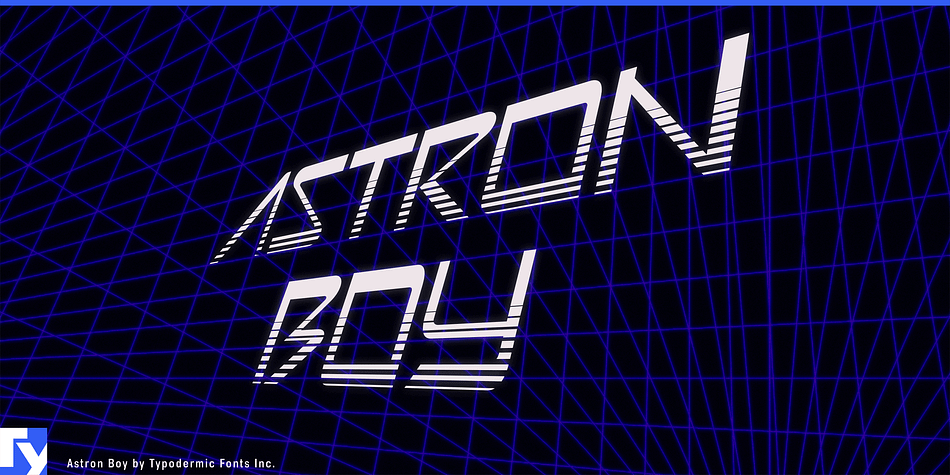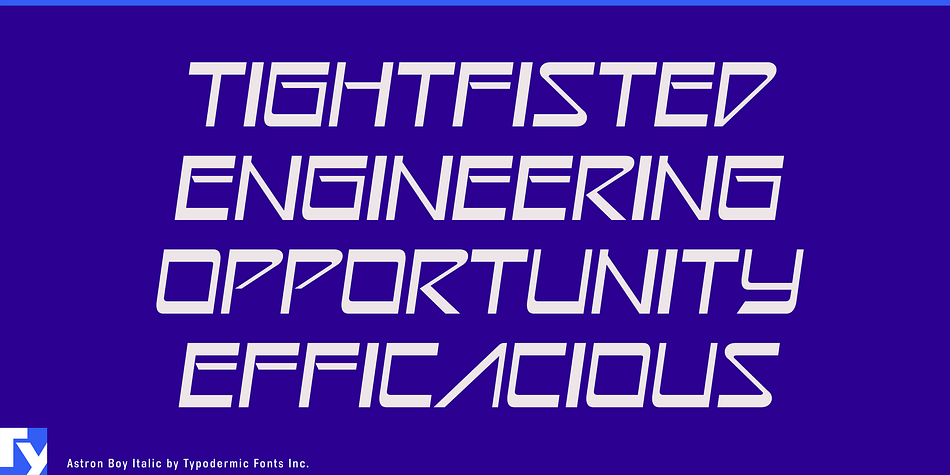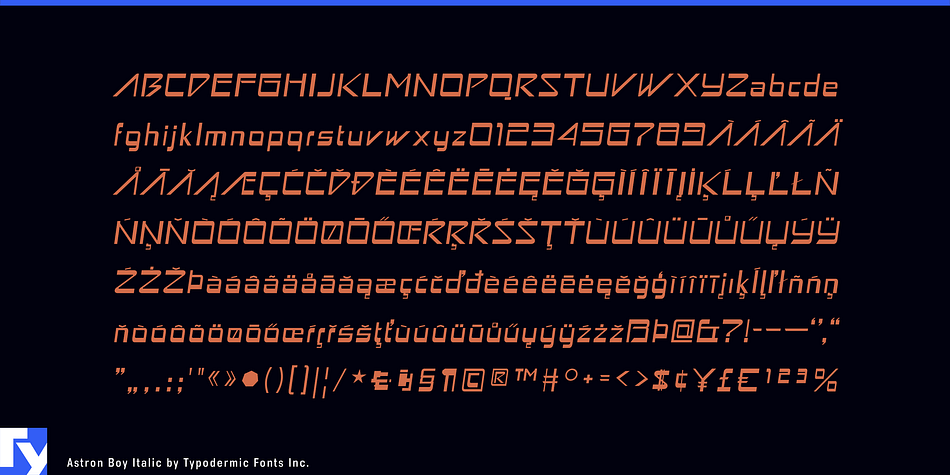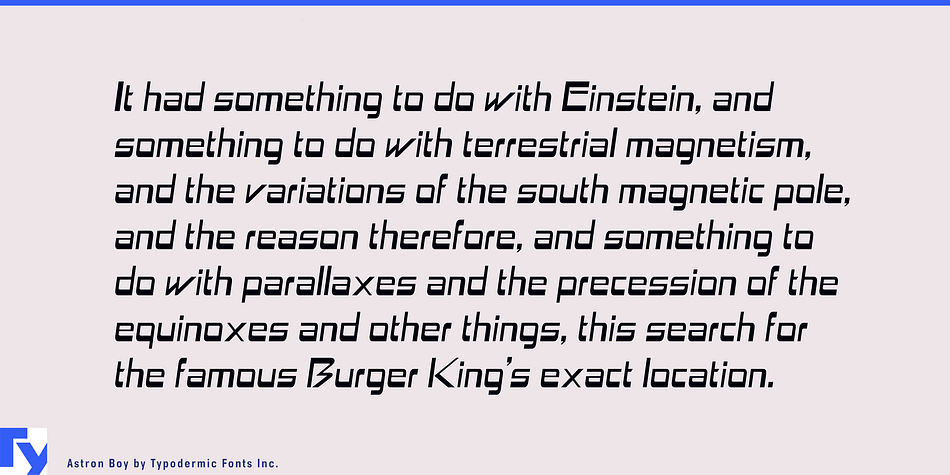
Astron Boy is a display font family. This typeface has four styles and was published by Typodermic Fonts Inc.
The rounded-square Astron Boy was inspired by a classic laserdisc videogame, Astron Belt. It’s available in regular, italic as well as shaded and striped styles.